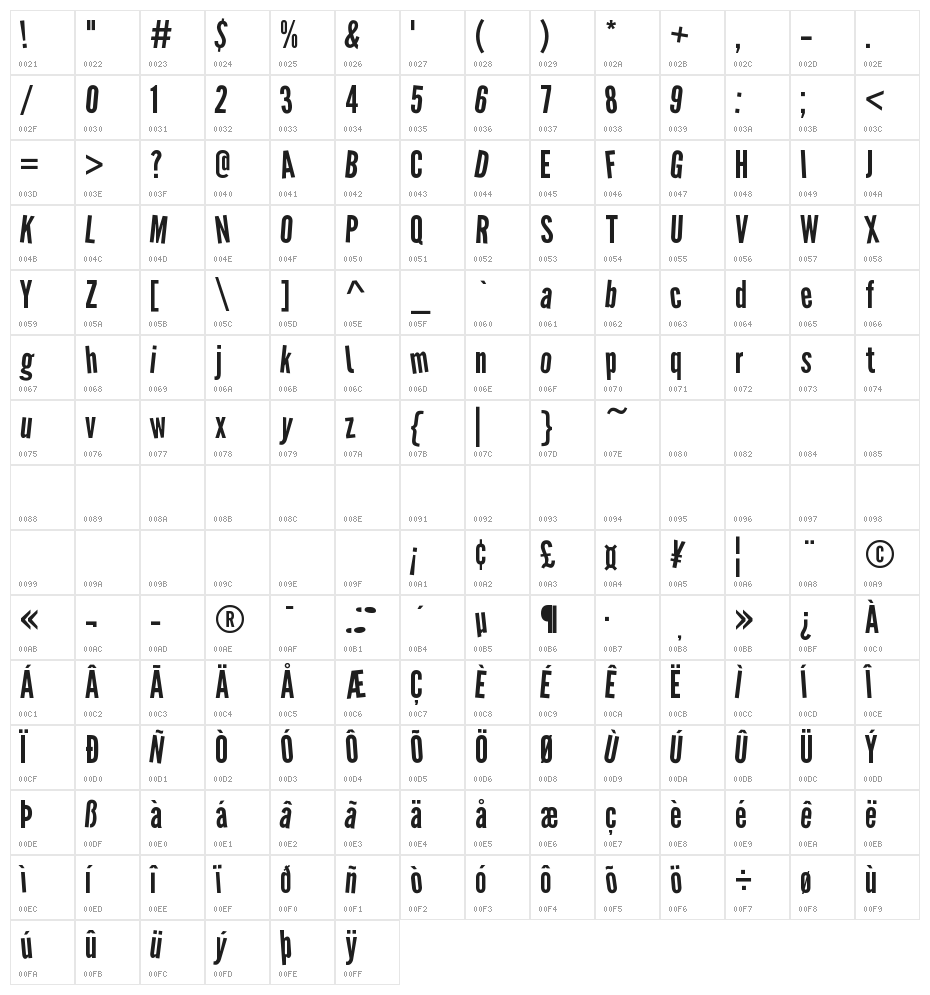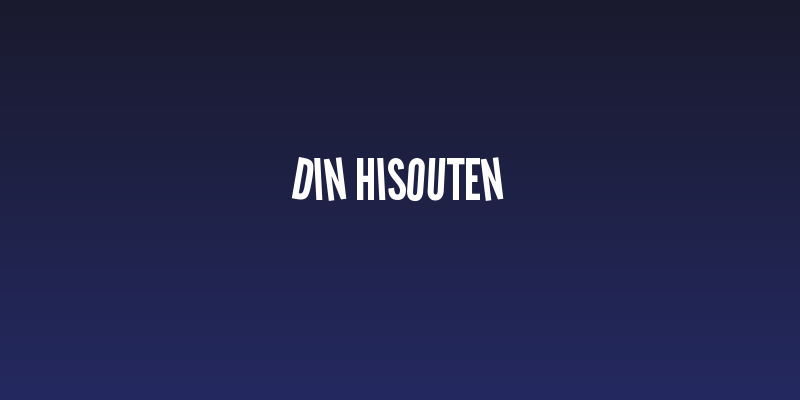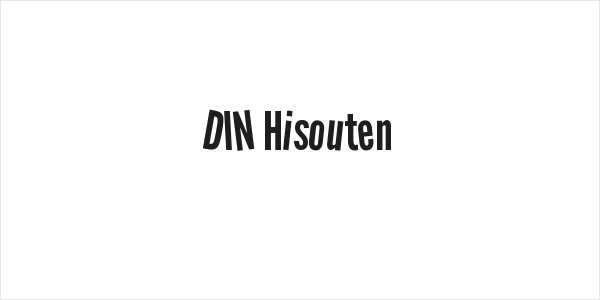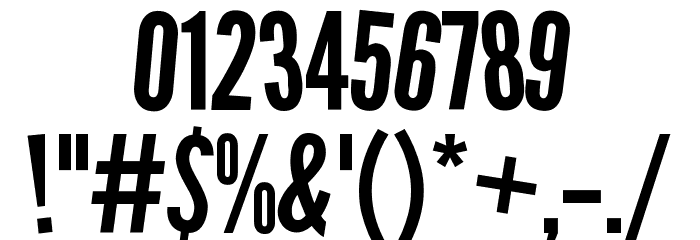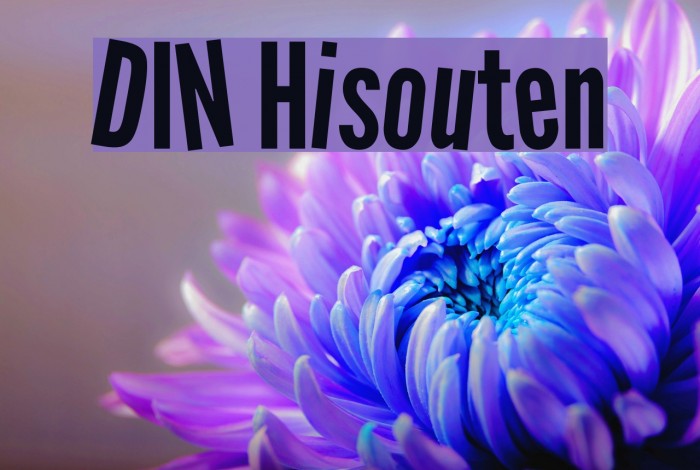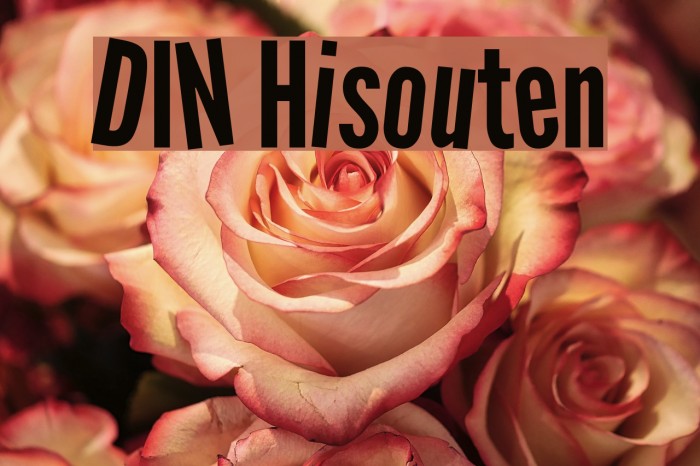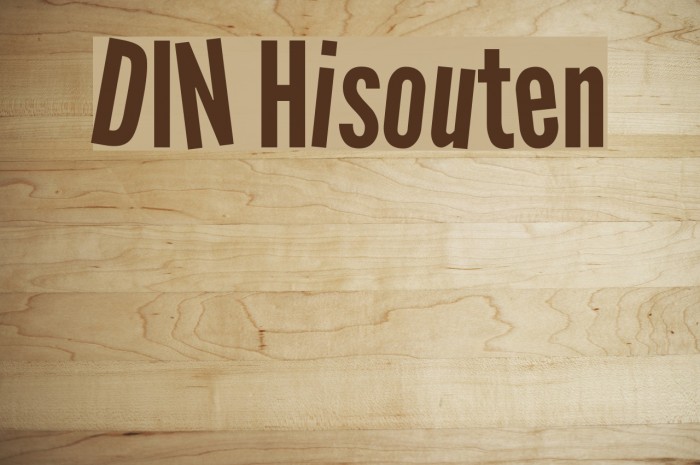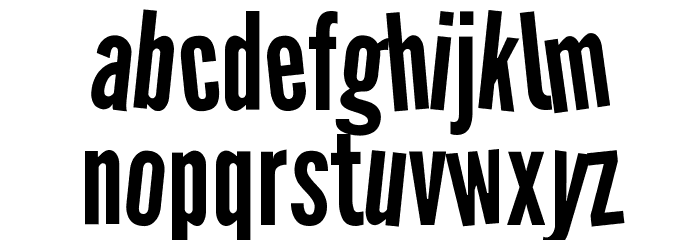
DIN Hisouten Font
This font features a bold and dynamic design with a slightly condensed width, creating a strong visual impact. The uppercase letters are tall and commanding, while the lowercase letters maintain a consistent style, offering a cohesive look. The numerals are clear and legible, making them suitable for various applications. Special characters are included, enhancing its versatility. The overall style is modern and assertive, making it ideal for projects that require a bold statement.
| Proposed Projects | Ideal for headlines, posters, branding, and advertising where a bold statement is needed. |